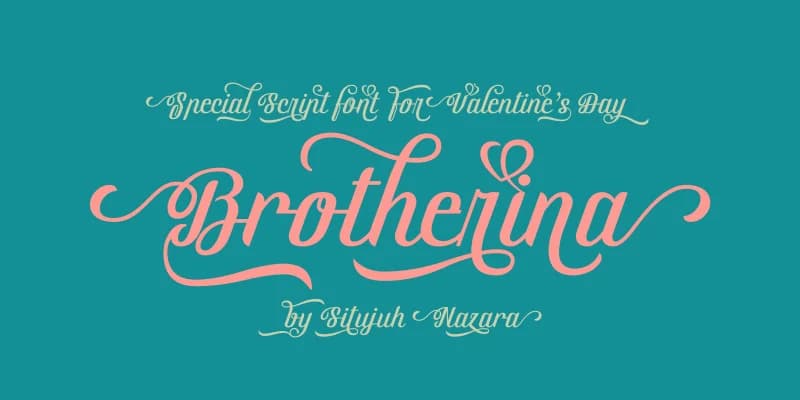
1 / 4About Brotherina Font
Brotherina Font by Situjuh is an elegant, flowing script that brings expressive character and personality to contemporary design work. The typeface's carefully crafted letterforms carry genuine hand-lettered warmth while maintaining the refinement and polish that professional projects demand. Its graceful curves and natural letterforms enhance any composition requiring personality and emotional resonance without sacrificing legibility or clarity.
This versatile script excels across numerous creative applications across multiple industries. Wedding invitation suites gain romantic appeal from its smooth, flowing letterforms, while artisan product labels and boutique packaging design benefit significantly from its sophisticated presence and refined character. Custom merchandise design and greeting card projects particularly showcase this font's ability to convey genuine personal touch and warmth at scale. Small business branding, event signage, and social media graphics leverage its distinctive character to create compelling visual identity.
Brotherina Font is a script font that shines as a display or heading face. Pair it with a clean sans-serif or serif font for body text β the contrast creates a clear hierarchy while the two styles stay balanced and easy to read.